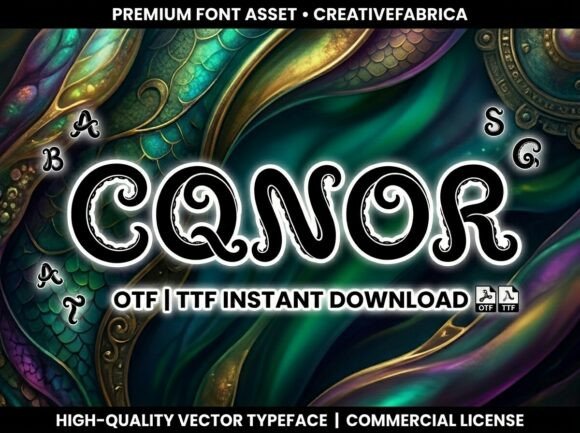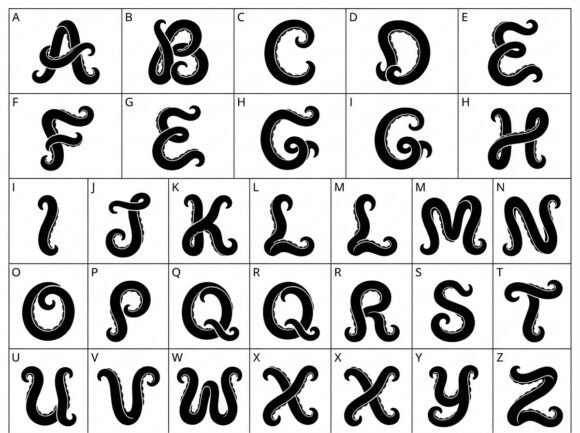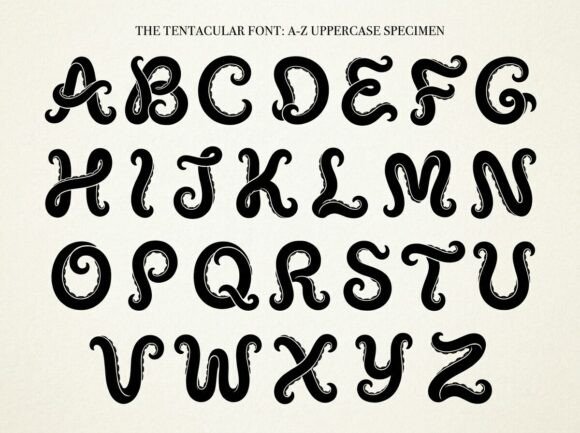
Unleash the Power of the Deep with Conor Font
Are you looking for a font that can add a touch of maritime adventure to your brand’s visual identity? Look no further than Conor, a captivating hand-drawn display font inspired by the legendary Kraken. This bold and unique typeface is perfect for designers and crafters who want to create unforgettable designs that evoke the power and mystery of the ocean.
The Inspiration Behind Conor Font
Conor Font is inspired by the mythical Kraken, a legendary sea monster said to dwell off the coasts of Norway and Greenland. The font’s design is characterized by bold, rhythmic letterforms that are artfully constructed with tentacle-like flourishes and intricate “suction cup” textures. These details give Conor a sense of handcrafted danger and unyielding oceanic strength, making it perfect for designs that aim to be both legendary and unforgettable.
Key Features of Conor Font
Conor Font features a number of key design elements that make it an extraordinary choice for maritime adventure branding, seafood restaurant logos, fantasy book covers, and unique nautical merchandise. Some of the key features of Conor Font include:
- Bold and Rhythmic Letterforms: Conor’s letterforms are bold and rhythmic, with a sense of movement and energy that evokes the power of the ocean.
- Tentacle-Like Flourishes: The font’s tentacle-like flourishes add a touch of whimsy and playfulness to the design, while also reinforcing the Kraken’s sea monster theme.
- Intricate “Suction Cup” Textures: The intricate “suction cup” textures add a level of detail and realism to the design, giving Conor a sense of authenticity and depth.
- Balance between Visual Weight and Anatomical Curves: The balance between Conor’s massive visual weight and the detailed anatomical curves makes it an extraordinary choice for designs that need to make a bold statement.
Use Cases for Conor Font
Conor Font is a versatile typeface that can be used in a variety of design applications, including:
- Maritime Adventure Branding: Conor Font is perfect for brands that want to evoke the sense of adventure and danger that comes with exploring the high seas.
- Seafood Restaurant Logos: The font’s oceanic theme and bold design make it a great choice for seafood restaurant logos that want to stand out from the crowd.
- Fantasy Book Covers: Conor Font’s mythical and legendary feel make it a great choice for fantasy book covers that want to evoke a sense of magic and wonder.
- Unique Nautical Merchandise: The font’s bold and eye-catching design make it perfect for unique nautical merchandise, such as t-shirts, posters, and stickers.
Why Choose Conor Font?
So why choose Conor Font for your next design project? Here are just a few reasons:
- Unique and Memorable Design: Conor Font’s bold and eye-catching design is sure to make your brand or design stand out from the crowd.
- High-Quality and Versatile: The font is high-quality and versatile, making it suitable for a wide range of design applications.
- Easily Readable: Despite its bold design, Conor Font is easily readable, making it perfect for use in a variety of contexts.
In conclusion, Conor Font is a captivating hand-drawn display font that is perfect for designers and crafters who want to add a touch of maritime adventure to their brand’s visual identity. With its bold and rhythmic letterforms, tentacle-like flourishes, and intricate “suction cup” textures, Conor Font is sure to make a bold statement. Whether you’re looking to create a memorable brand, a unique logo, or a eye-catching design, Conor Font is the perfect choice.